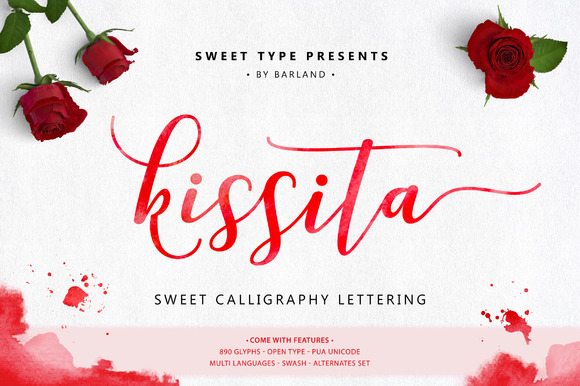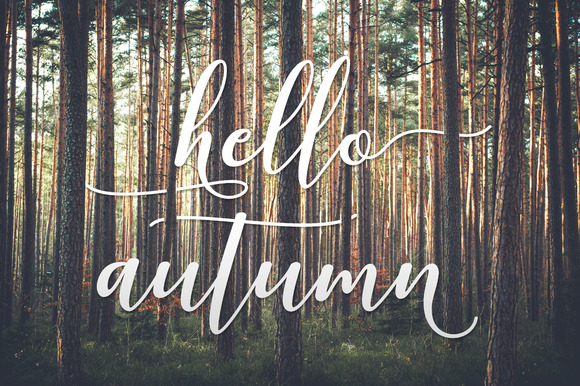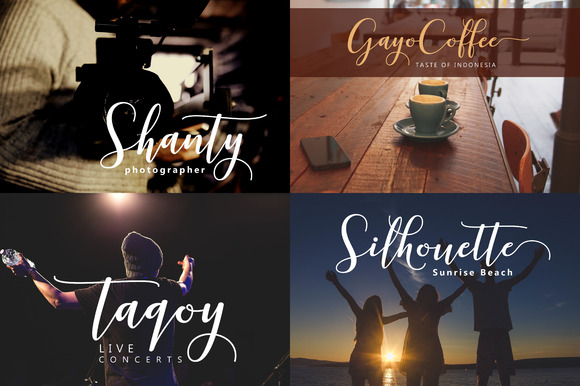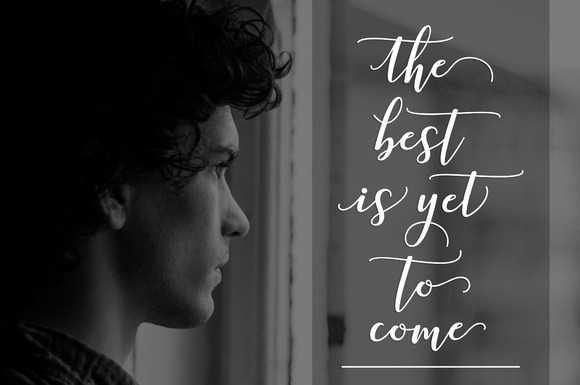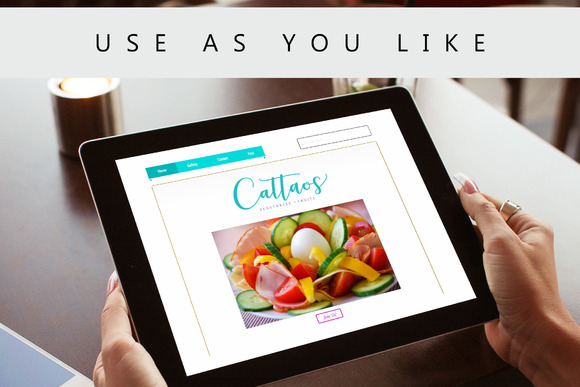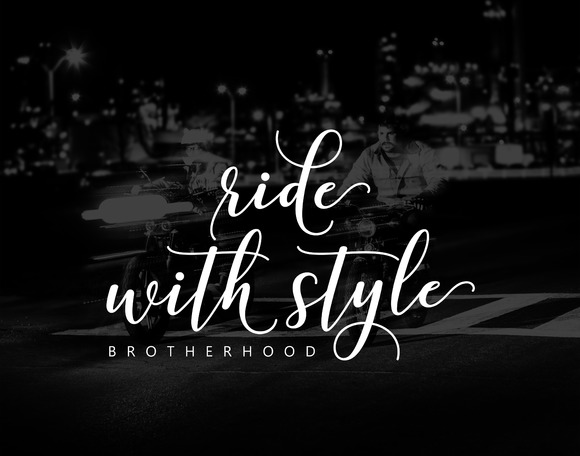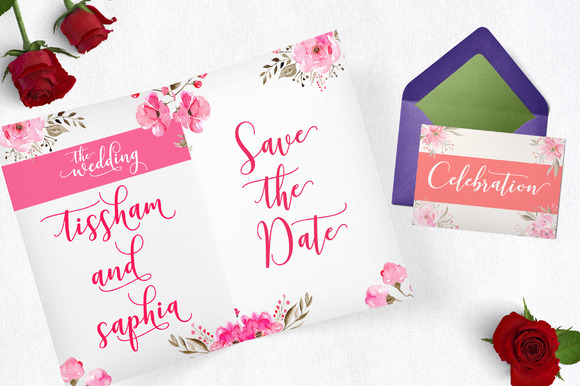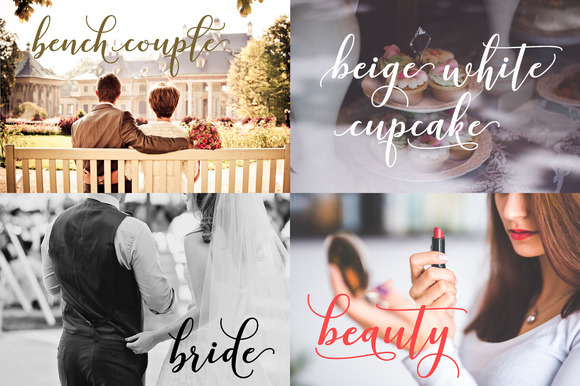
Kissita Font
About Kissita Font
Kissita is stunning set of 16 calligraphy fonts (1 main font with 15 alternates!).
You will be able to create unlimited variations with this stunning font and never run out of ideas for your next project. The fonts contain beautiful swashes and are great for adding personality to any design.